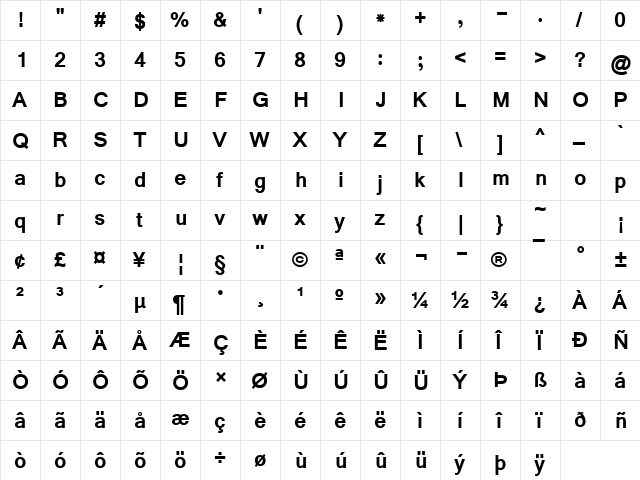
Vrinda Bold
| Designer | Raghunath Joshi (Type Director), Vinay Saynekar |
Design Context for Vrinda Typeface
Vrinda takes a measured approach to typography — its balanced proportions and neutral character make it a reliable workhorse for both digital and print work. The heavy weight commands attention and anchors typographic hierarchies.